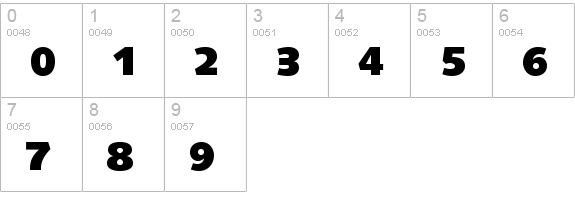
Introducing Syntax UltraBlack, a bold and powerful font that commands attention with its striking presence. Designed for maximum impact and readability, this typeface is perfect for headlines, posters, and other display purposes that require a strong and confident look. The ultra-black weight exudes a sense of authority and sophistication, making it ideal for making a bold statement. What sets Syntax UltraBlack apart is not just its boldness, but also its versatility. Despite its strong appearance, this font remains highly legible even at smaller sizes, ensuring that your message is always clear and impactful. Its clean lines and well-balanced proportions give it a modern and sleek aesthetic that can elevate any design project. And the best part? Syntax UltraBlack is available for free download at FontsMarket.com. That's right, you can access this high-quality font at no cost, making it a valuable addition to your design toolkit. Don't miss out on the opportunity to add this striking typeface to your collection and take your designs to the next level with Syntax UltraBlack.